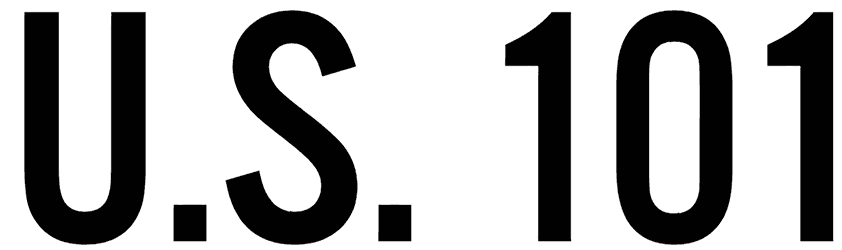
U.S. 101 Font
Luckily, due to its clean, modern, and minimalist design, you would have the upper hand in developing typography. U.S. 101, as a sans serif font, can ditch the monotonous style and absorb some real attention by applying the friendly and trendy effects to your scheme for making sweet outcomes.
Despite it lacking lowercase letters, it will be suitable in many statuses; posters, headers, games interfaces, book presentations, and others. Come on to try it out, for getting more, visit RB right off!